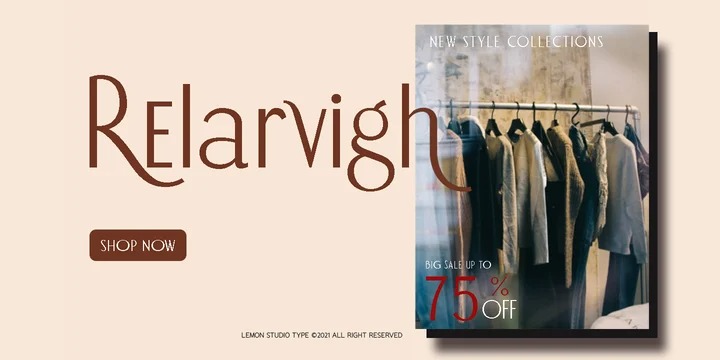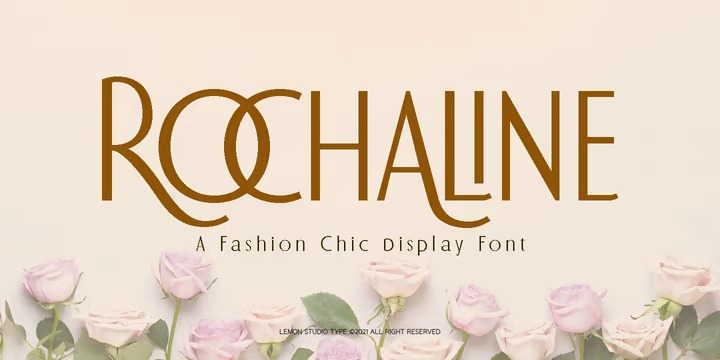
Rochaline Sans Serif Font
This is an elegant and beautiful sans serif typeface package by lemon studio. This font was inspired by and for fashion brands in the world. In general, it creates a luxurious and elegant look in design.
Use this font for your fashion brand, resort, cosmetics, invitations, wedding, branding, packaging, magazines, boutique, social media, restaurant, spa, greeting cards, headers, headline, and many more…